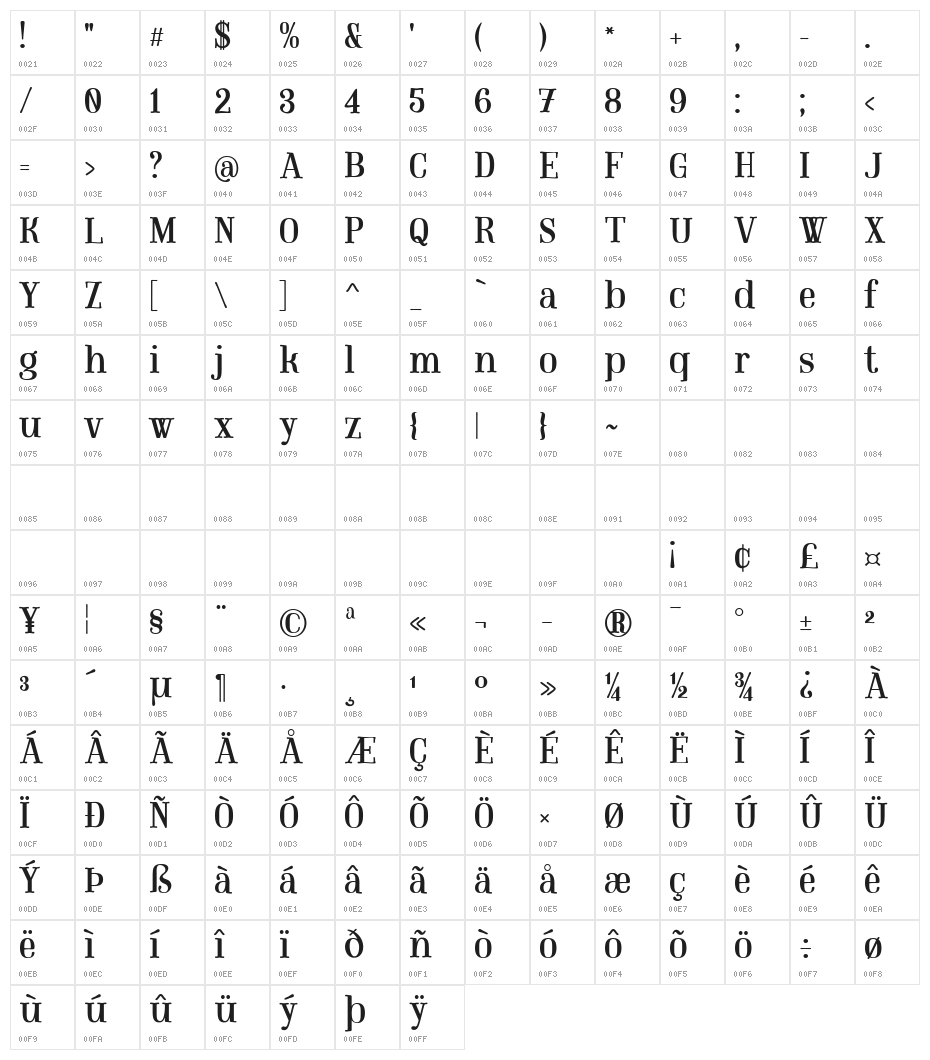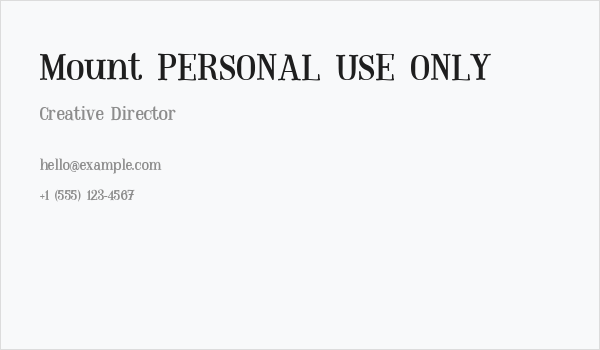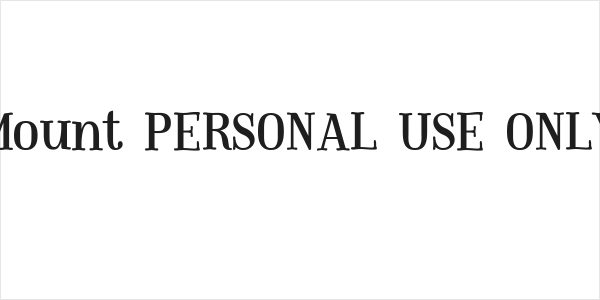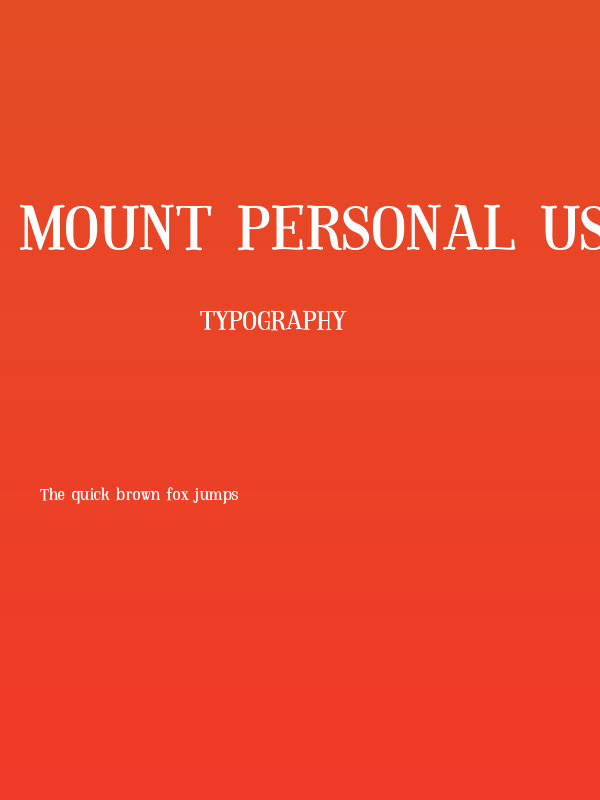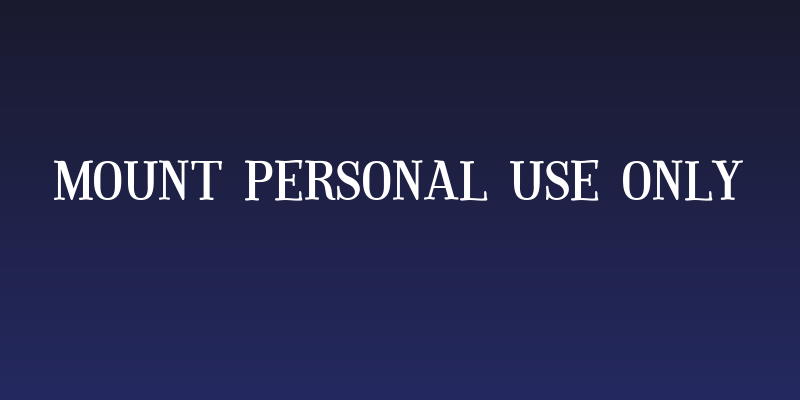
Mount PERSONAL USE ONLY Font
Mount PERSONAL USE ONLY Description
This font features a classic serif style with a modern twist, characterized by its bold and pronounced serifs that give it a strong and authoritative presence. The uppercase letters are tall and commanding, while the lowercase letters maintain a consistent and harmonious flow. The numerals are clear and distinct, making them easily readable. Special characters are designed with the same attention to detail, ensuring they integrate seamlessly with the rest of the typeface. The overall design is balanced, with a slight contrast in stroke thickness that adds to its legibility and aesthetic appeal.
| Use Case | Headlines, Editorial design, Branding |
| Proposed Projects | Ideal for use in headlines, editorial design, branding projects, and any application requiring a classic yet modern serif typeface. |